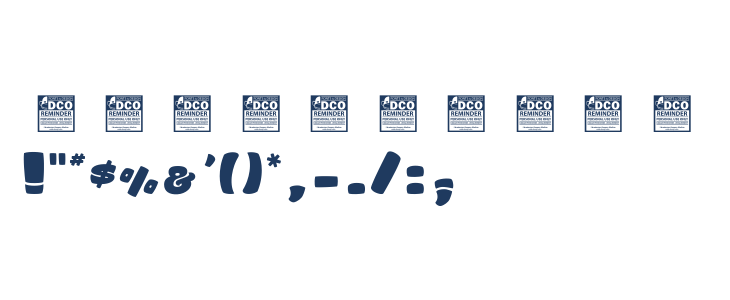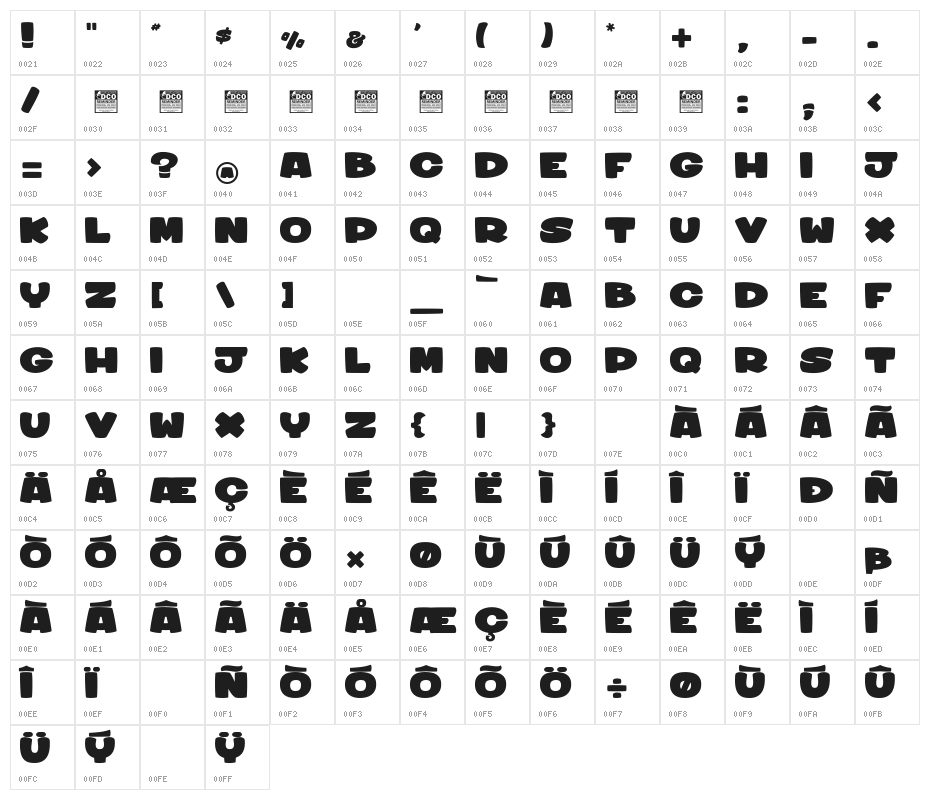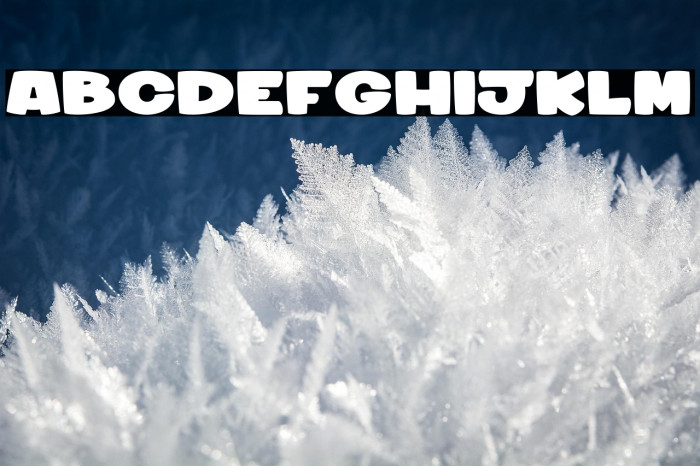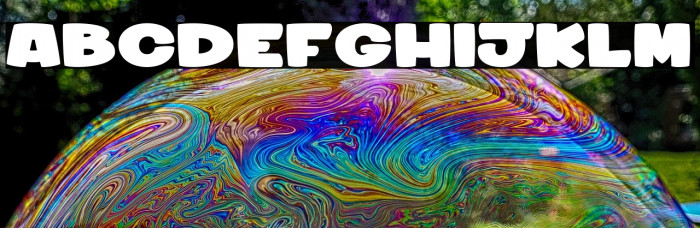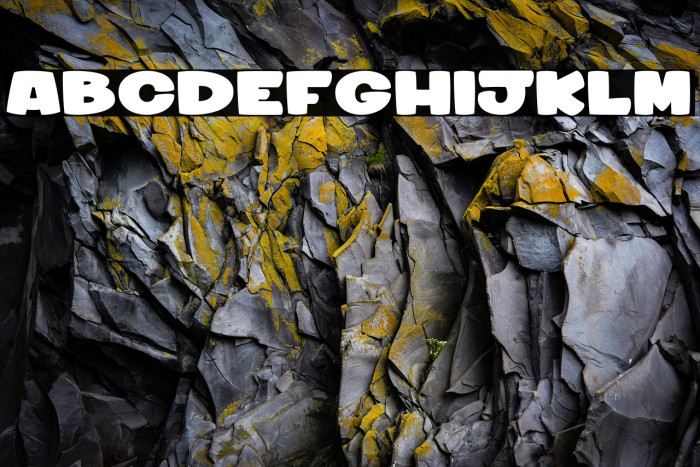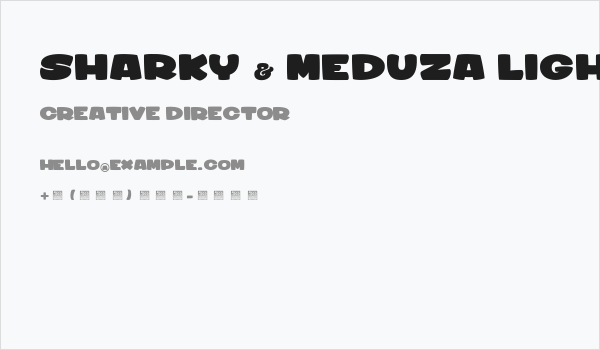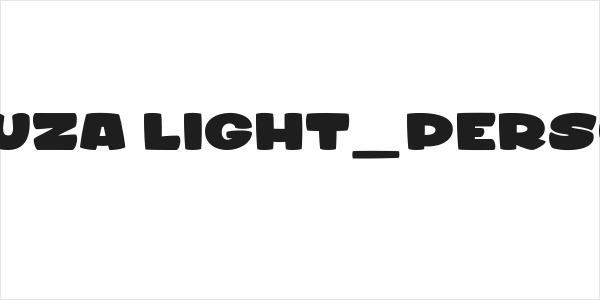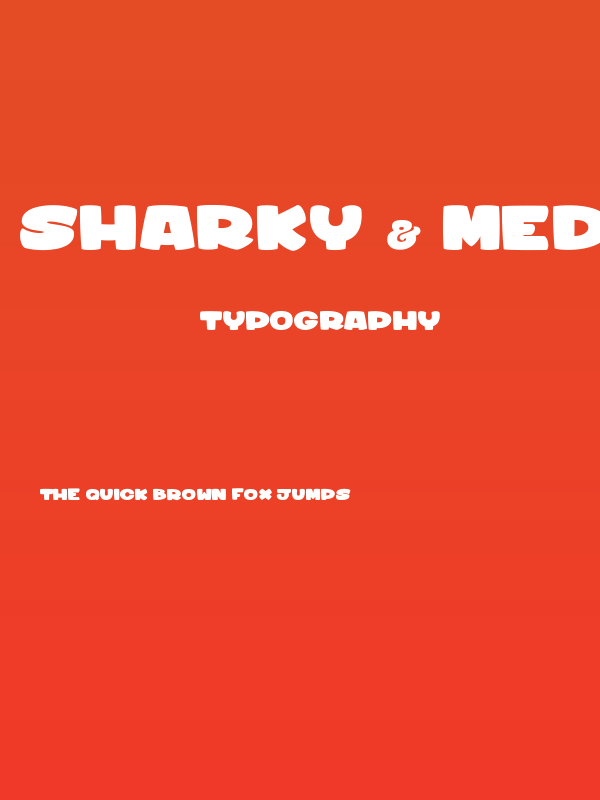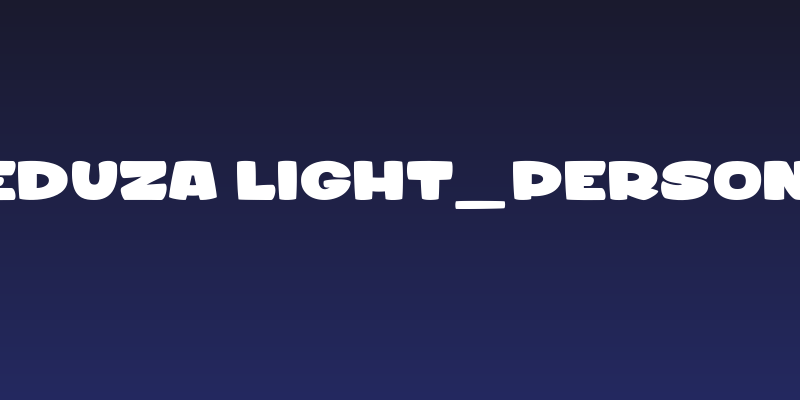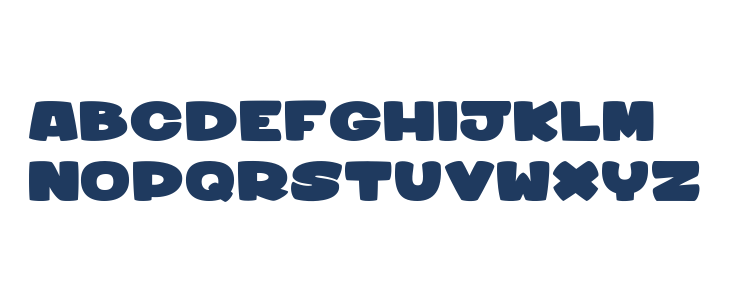
Sharky & Meduza Light_PersonalUseOnly Font
Sharky & Meduza Light_PersonalUseOnly Description
This font features bold, rounded characters with a playful and chunky appearance. The letters are uniformly thick, giving them a strong presence on the page. The style is reminiscent of retro or vintage designs, with a touch of modern flair. The uppercase and lowercase letters maintain a consistent weight, contributing to a cohesive look. The numerals and special characters follow the same design principles, ensuring uniformity across all glyphs. This font's unique style makes it suitable for eye-catching designs.
Overall StyleRetro, Playful
Proposed ProjectsIdeal for posters, logos, children's books, and any design requiring a fun and bold statement.